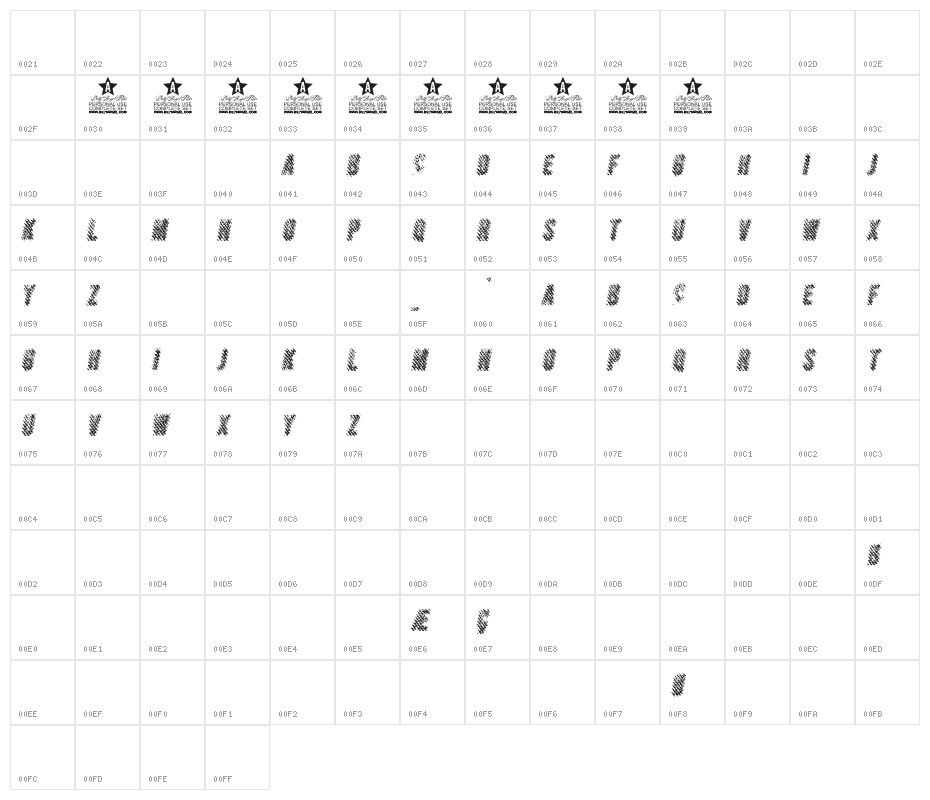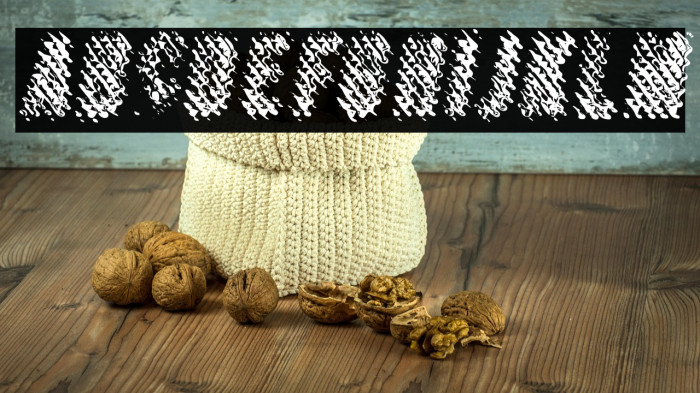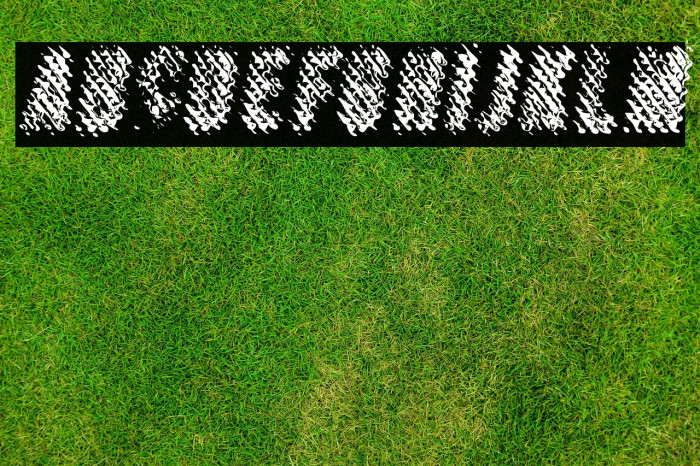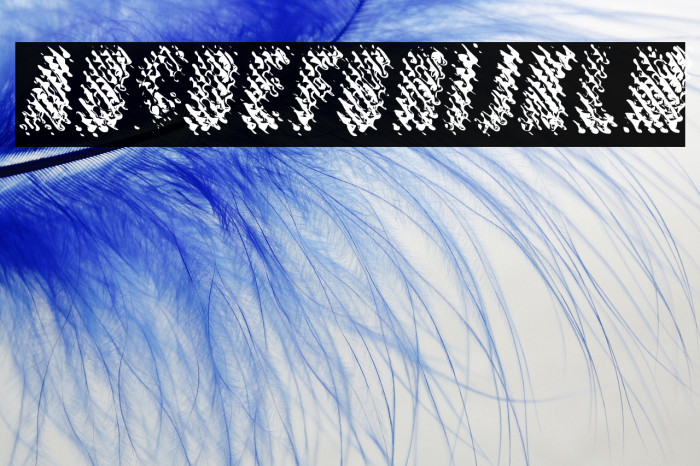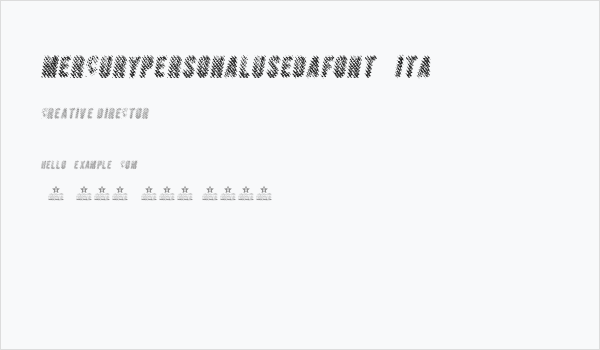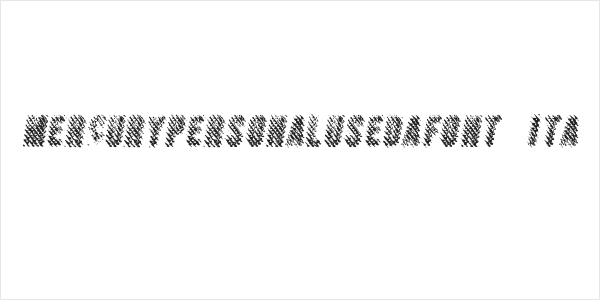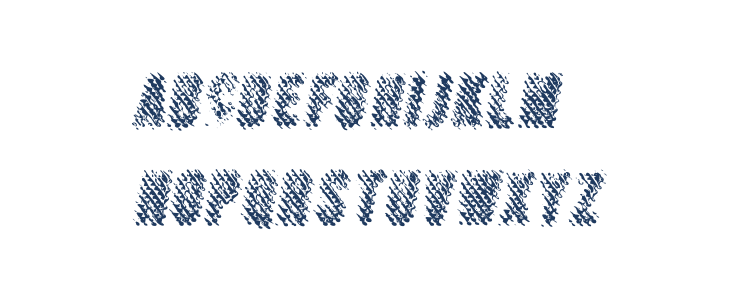
MERCURYPERSONALUSEDAFONT-Ita Font
MERCURYPERSONALUSEDAFONT-Ita Description
This font exhibits a highly decorative and artistic style, characterized by a dynamic, textured appearance that resembles a brush or paint stroke effect. The letters are bold and have a sense of movement, giving them a lively and energetic feel. The texture within each character adds depth and complexity, making it stand out as a display font. The uppercase and lowercase letters maintain a consistent style, with a slightly italicized slant that enhances the sense of motion. This font is ideal for projects that require a bold and artistic statement, such as posters, album covers, or creative branding.
| Proposed Projects | Ideal for posters, album covers, creative branding, and artistic projects. |